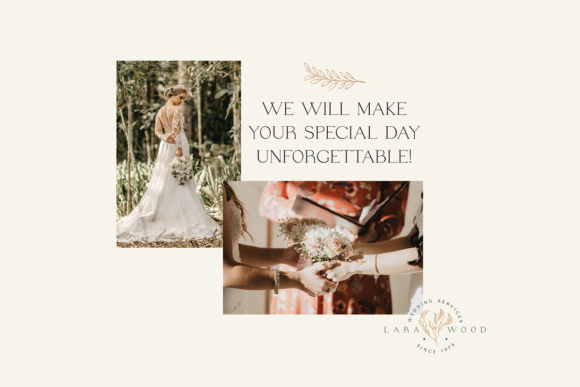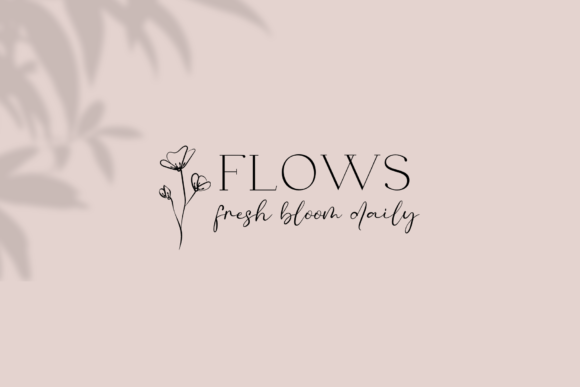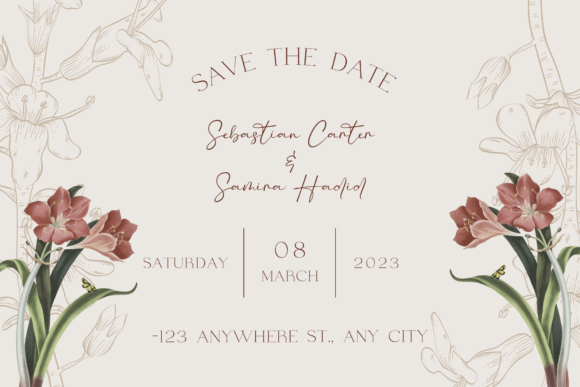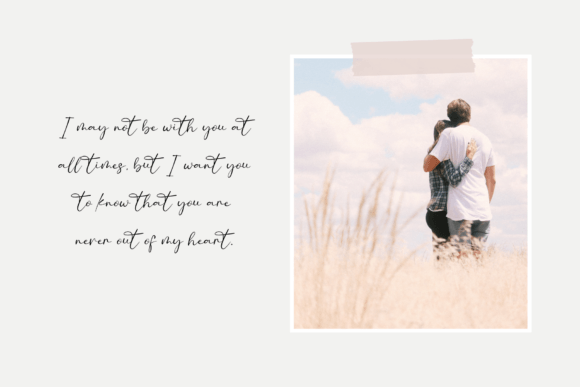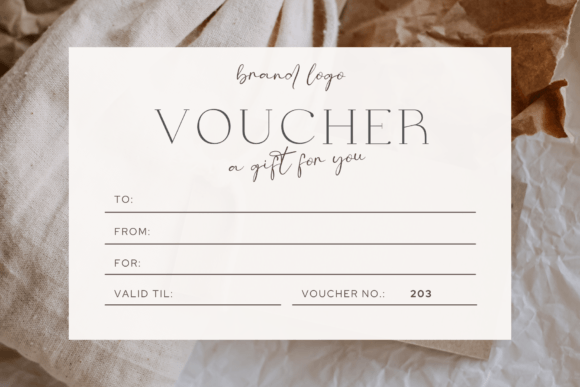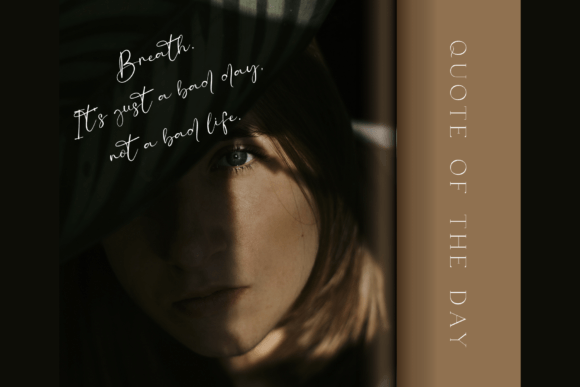
I still remember the frustration of working on a high-end branding project, only to hit a roadblock when it came to selecting the perfect font. My client wanted something luxurious, modern, and elegant, but everything I tried seemed to fall flat. That was until I stumbled upon Bianca Font – a game-changing, all-caps serif font that instantly elevated my design.
Bianca Font: A Luxurious Addition to Your Design Toolkit
Bianca is a modern and luxurious all-caps serif font that embodies the perfect blend of minimalism and classic sophistication. Its thin, elegant lines make it an ideal choice for designers, crafters, and creative hobbyists looking to add a touch of luxury to their projects.
So, what makes Bianca Font so special? Here are a few things I love about this stunning font:
• ✨ Effortless elegance: Bianca’s sleek design makes it perfect for high-end branding, packaging, and editorial projects.
• ✅ Versatility: This font works beautifully in both digital and print formats, making it a great addition to your design toolkit.
• 💡 Instant recognition: Bianca’s unique blend of modern and classic elements ensures your design stands out from the crowd.
Of course, no font is perfect, and Bianca has a few minor quirks:
• 🤔 Limited use cases for body text: Due to its thin lines and all-caps design, Bianca works best as a headline or title font.
• ⚠️ Glyph support: While Bianca has an impressive range of glyphs, some users may find the lack of extensive language support limiting.
Exploring Alternatives: Similar Fonts to Bianca
If you’re looking for similar fonts to Bianca, here are a few alternatives to consider:
• Playfair Display: A luxurious, high-end serif font perfect for headlines and titles.
• Raleway: A modern, elegant sans-serif font ideal for body text and captions.
• Didot: A classic, sophisticated serif font suitable for fashion and luxury branding.
• Bodoni: A sleek, modern serif font great for headlines and titles.
The Story Behind Bianca Font
Bianca Font was designed with the goal of creating a luxurious, modern serif font that would meet the needs of designers and crafters. Inspired by classic typography and modern design trends, Bianca’s creator aimed to craft a font that would be both elegant and versatile.
What is Bianca Font best suited for? Bianca Font is ideal for high-end branding, packaging, and editorial projects where a luxurious, modern look is desired.
Can I use Bianca Font for body text? While Bianca Font can be used for body text, it’s best suited for headlines and titles due to its thin lines and all-caps design.
Is Bianca Font suitable for digital use? Yes, Bianca Font works beautifully in digital formats, making it a great choice for website headers, social media graphics, and more.